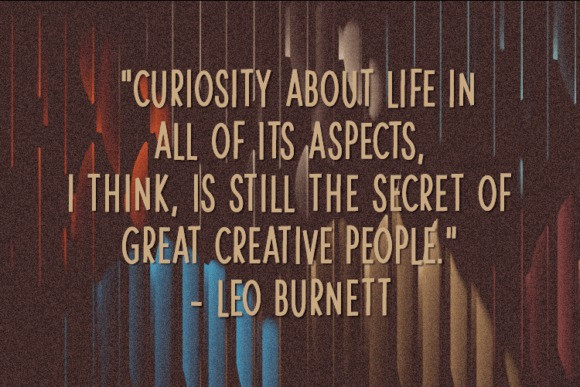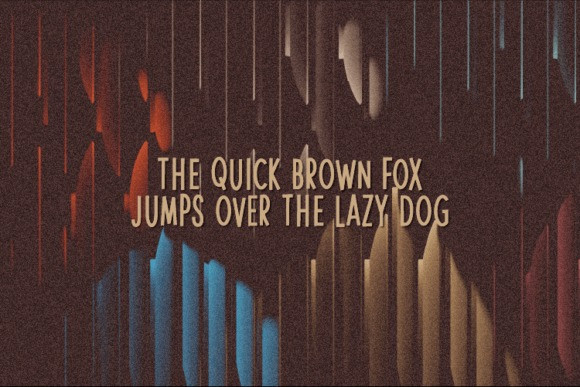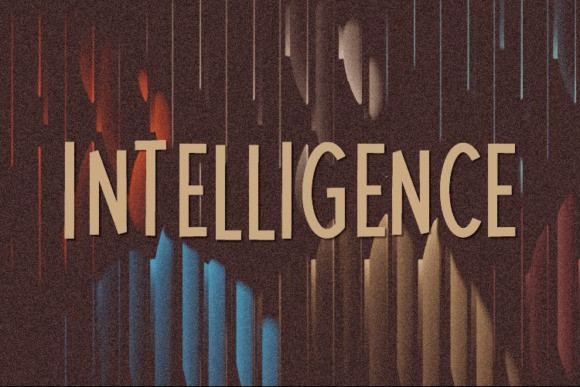
Intelligence Font
Intelligence Font is a natural sans serif font made without changing a single node in each character’s indentation – this makes this font very interesting and unique. Perfect for quotes, notes, tees, and any product design.